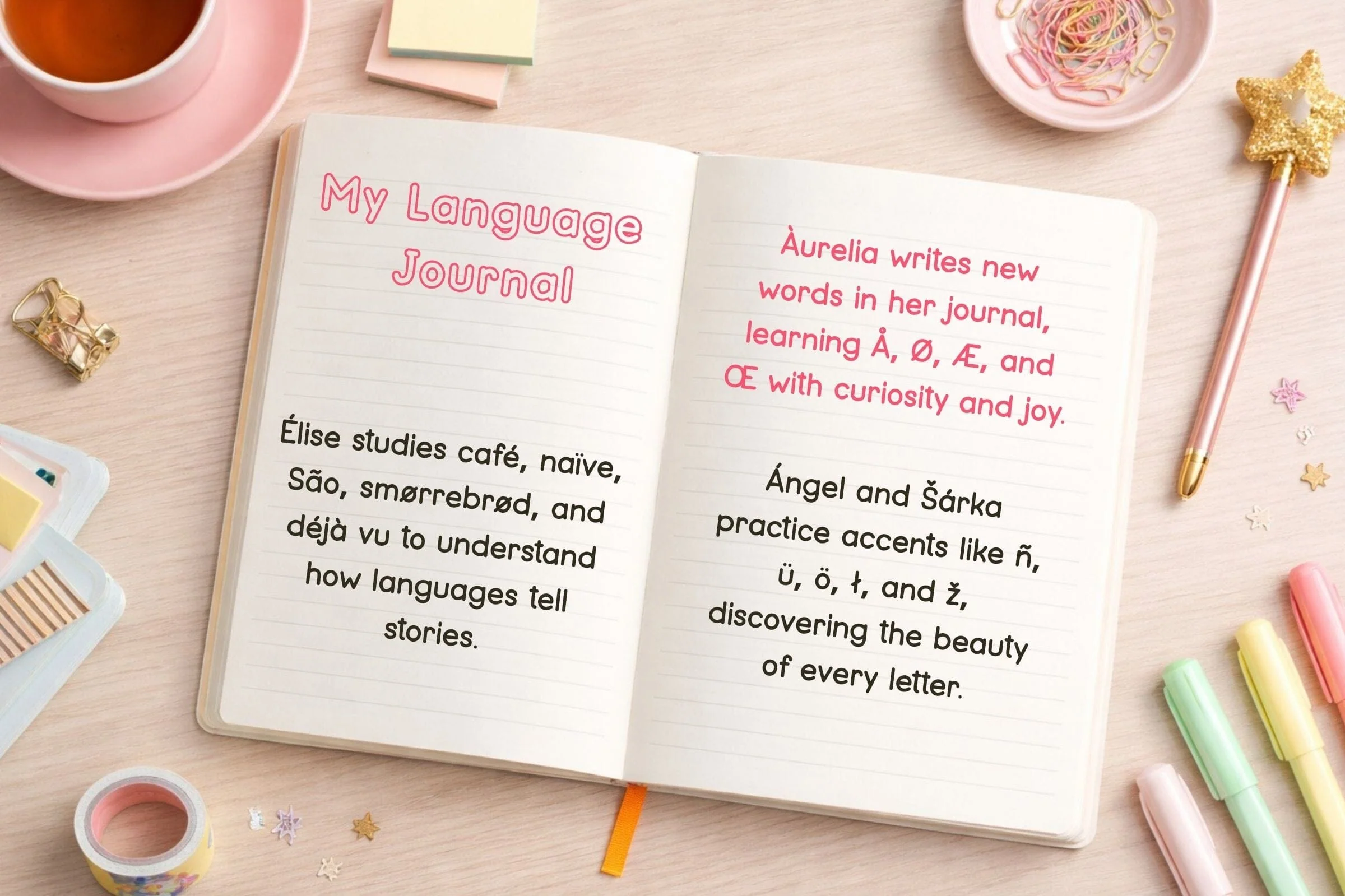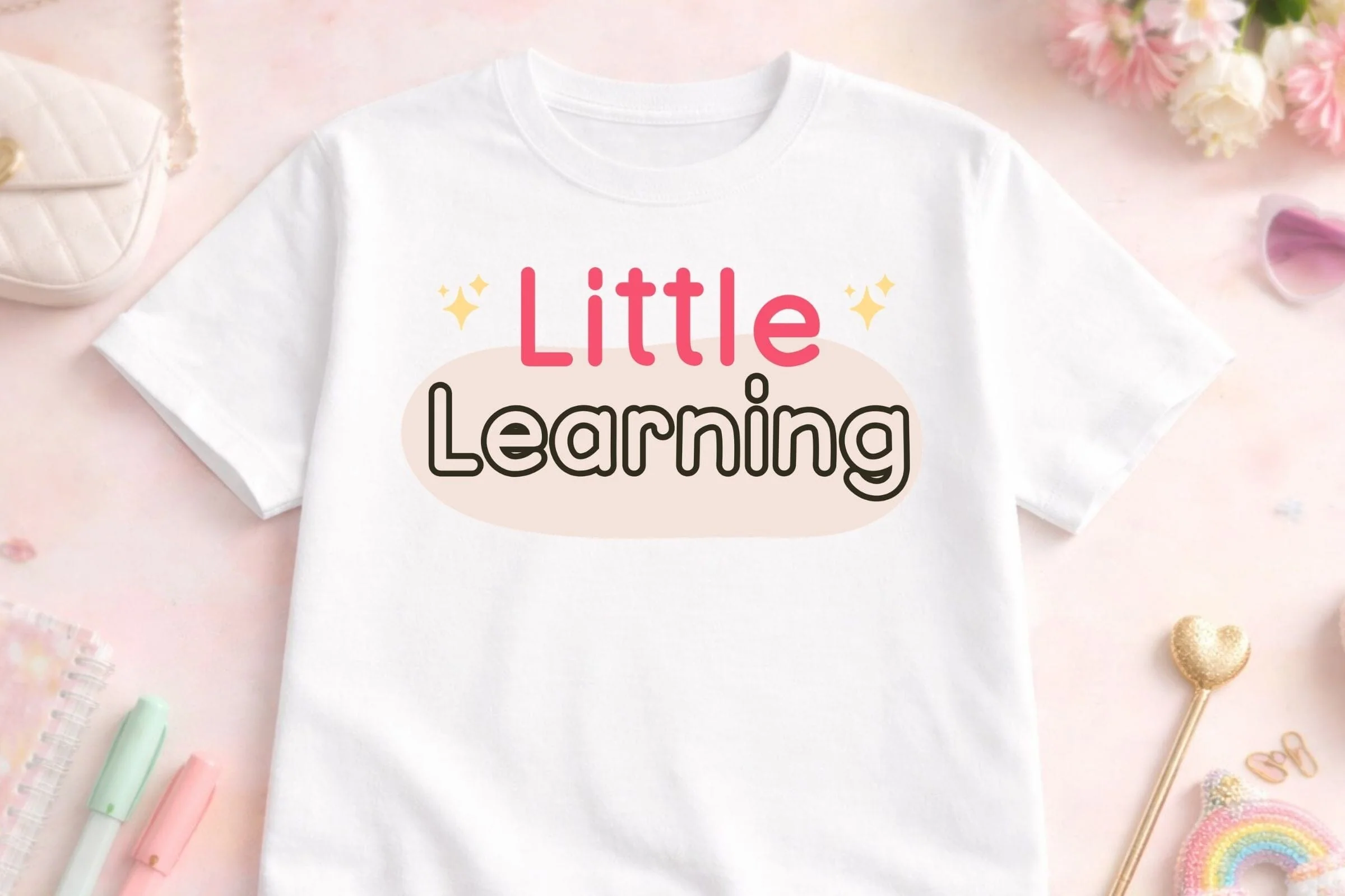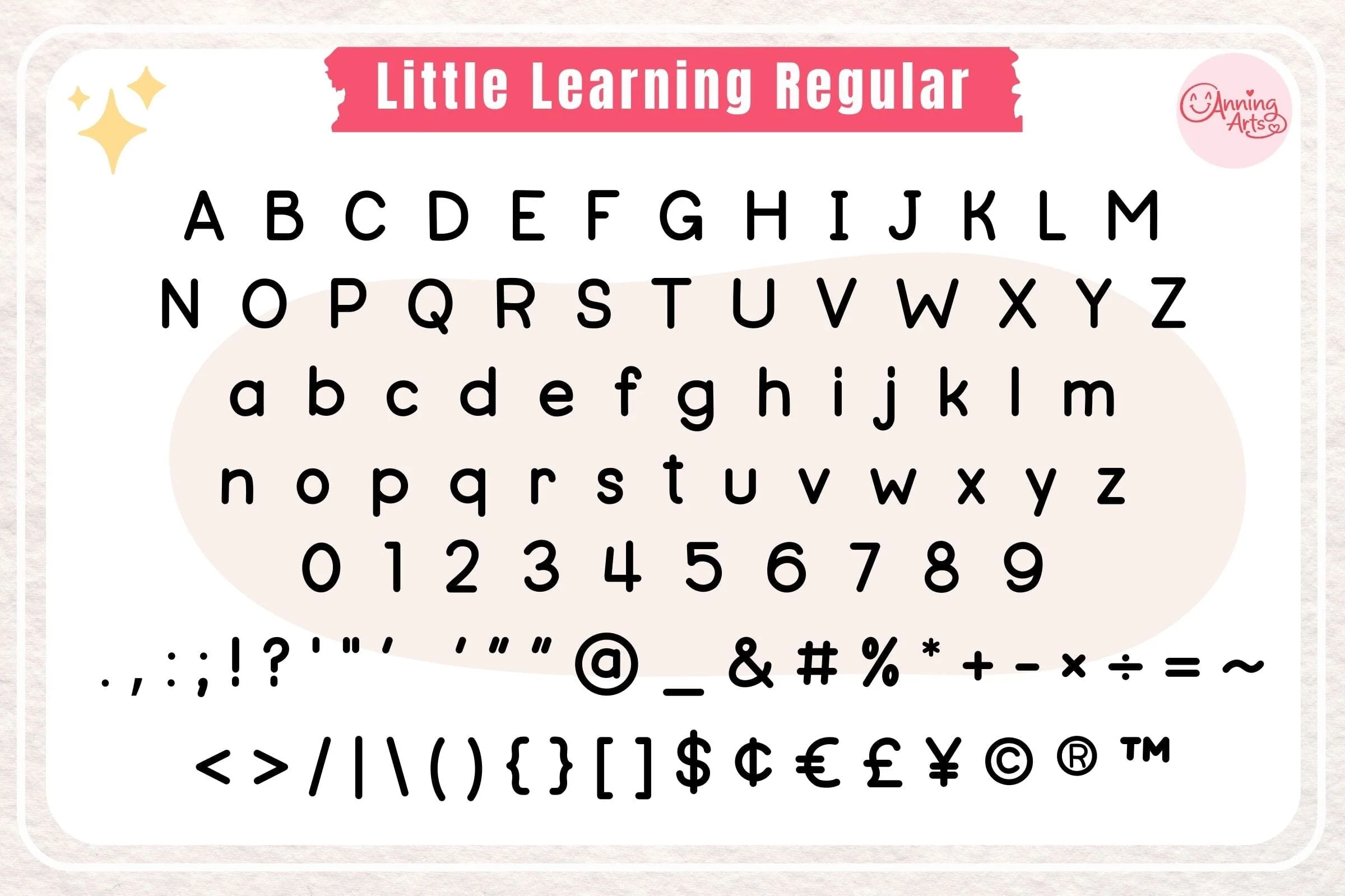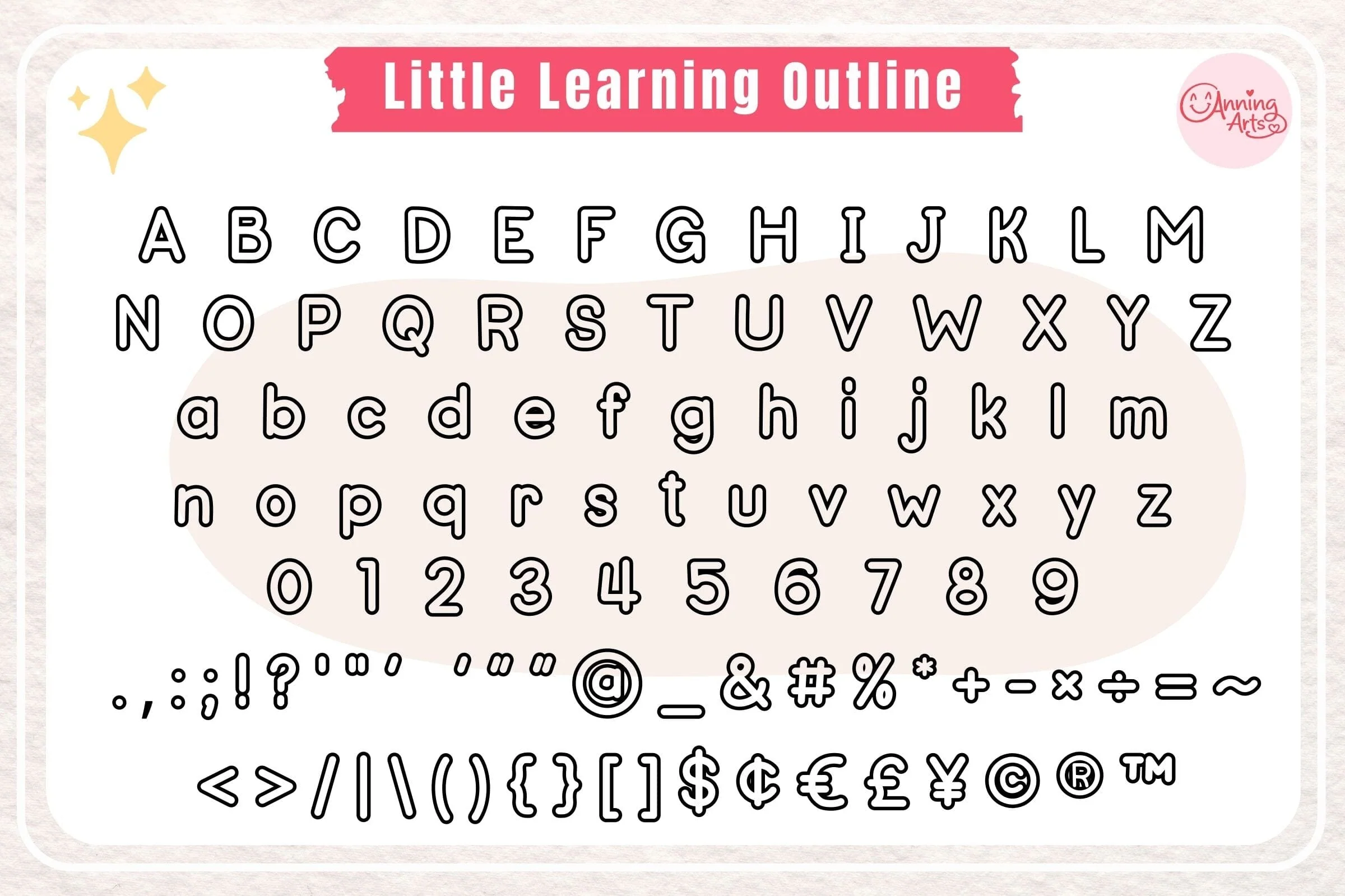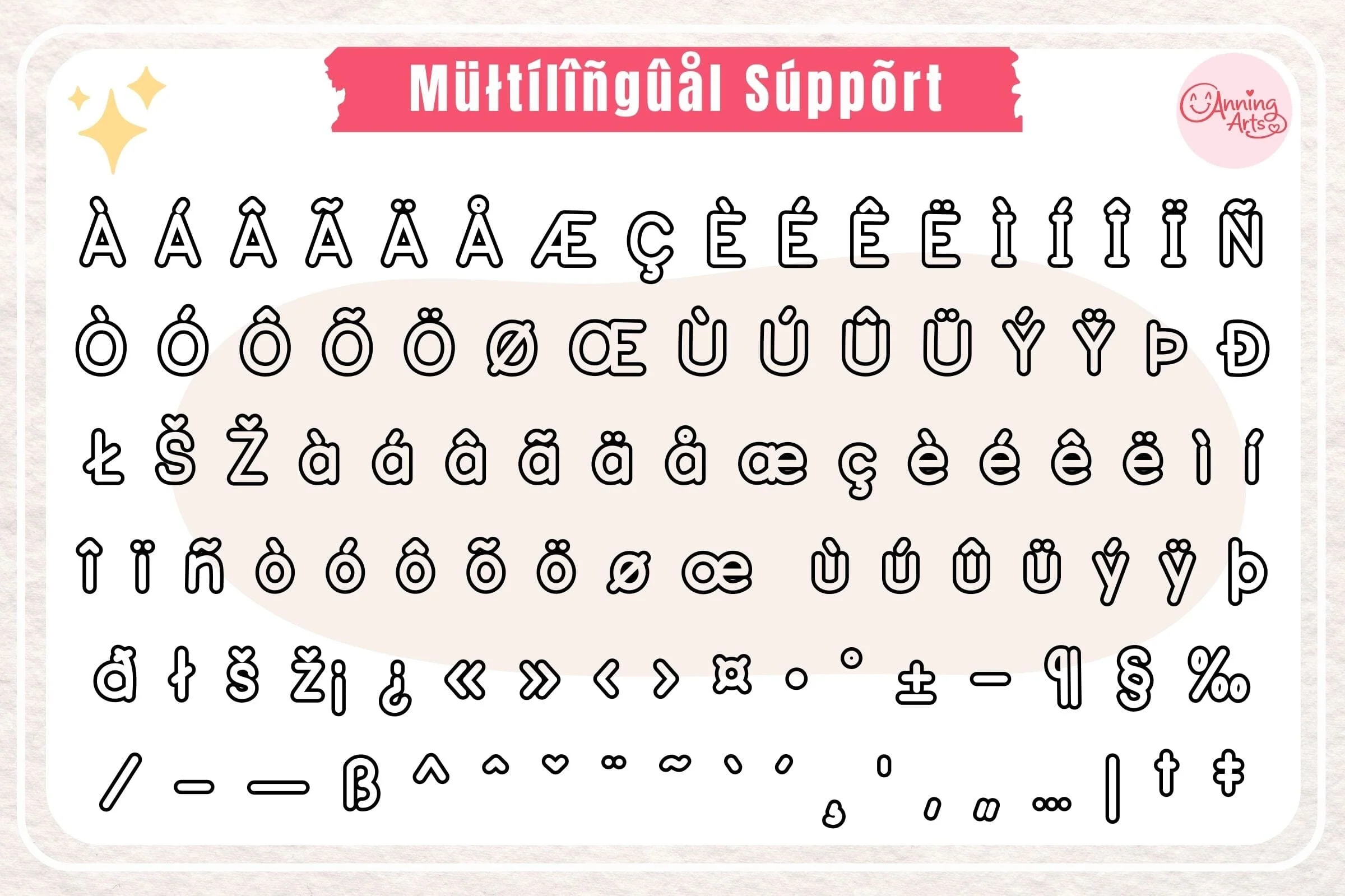
Little Learning Font – Cute School Cricut Font | Outline & Regular
Little Learning is a cute and playful handwritten font designed with crafters in mind.
Perfect for Cricut and Silhouette projects, this font comes in Regular and Outline styles — ideal for layering, vinyl cutting, and back to school designs.
Smooth rounded letters cut beautifully on vinyl and HTV.